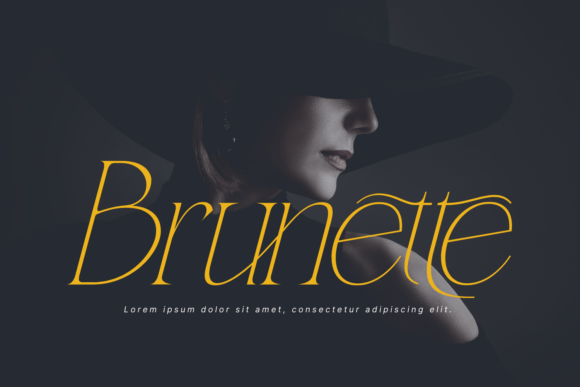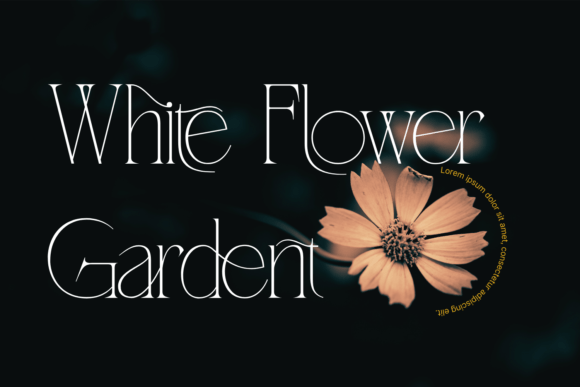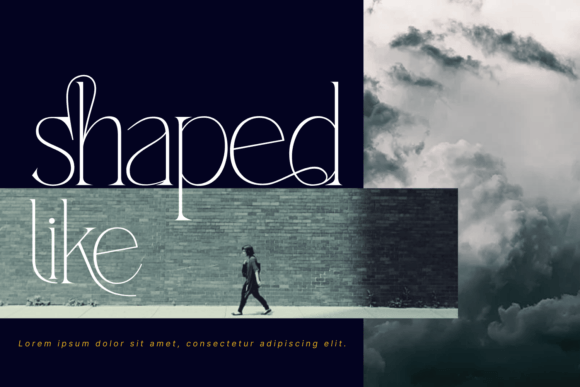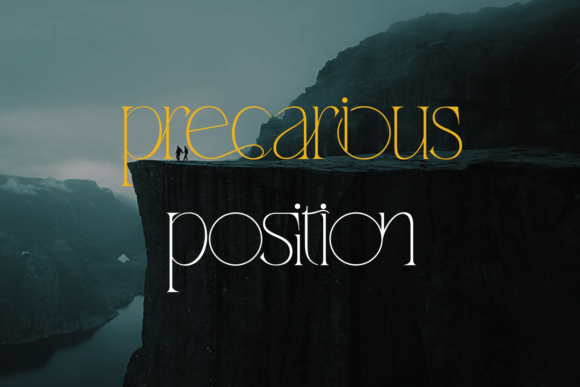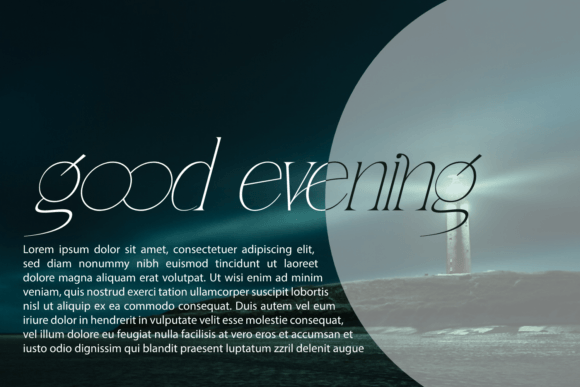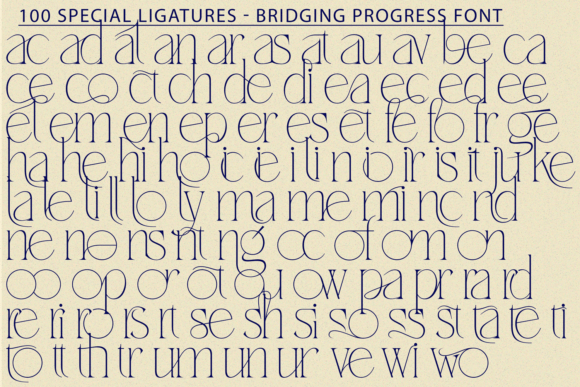
Bridging Progress Font: Elevate Your Designs with a Modern, Expressive Typeface
In the ever-evolving world of typography, a new font has emerged to challenge the status quo and push the boundaries of contemporary design. Introducing Bridging Progress Font, a modern, display typeface that embodies the perfect blend of traditional and modern elements. This eccentric and expressive font is designed for daring projects that demand a unique and captivating visual identity.
A Unique Character that Stands Out
Bridging Progress Font boasts an unmistakable character that sets it apart from other typefaces. Its letterforms feature a dynamic blend of classic and modern elements, creating a unified design that is both luxurious and clean. This font is perfect for designers and crafters who want to add a touch of sophistication and elegance to their projects.
Bridging Progress Font is an incredibly versatile typeface that can be used for a wide range of projects. Whether you’re designing a website, creating a modern logo, developing a branding identity, or crafting social media quotes, this font is sure to impress. It’s also perfect for wedding stationery, business cards, and various other design needs.
Built with OpenType Features
Bridging Progress Font was built with OpenType features, making it a highly functional and flexible typeface. It includes 100 ligatures, alternate characters, numbers, punctuation, and supports multiple languages. This means that you can experiment with different combinations of characters to create unique and eye-catching text arrangements.
- Modern and expressive design: Bridging Progress Font features a unique and captivating design that’s perfect for daring projects.
- Luxurious and clean style: This font brings a touch of sophistication and elegance to your designs.
- Versatile and flexible: Use Bridging Progress Font for a wide range of projects, from websites and logos to social media quotes and wedding stationery.
- OpenType features: This font includes 100 ligatures, alternate characters, numbers, punctuation, and supports multiple languages.
Why Choose Bridging Progress Font?
With so many typefaces available, why choose Bridging Progress Font? Here are just a few reasons:
- Stand out from the crowd: This font’s unique character and expressive design ensure that your projects will stand out from the competition.
- Elevate your brand: Bridging Progress Font’s luxurious and clean style is perfect for brands that want to convey sophistication and elegance.
- Easy to use: This font is highly functional and flexible, making it easy to experiment with different text arrangements and design combinations.
Whether you’re a seasoned designer or a crafty DIY enthusiast, Bridging Progress Font is an essential addition to your typography toolkit. Its unique character, versatility, and OpenType features make it an indispensable resource for anyone looking to create stunning, professional-grade designs.